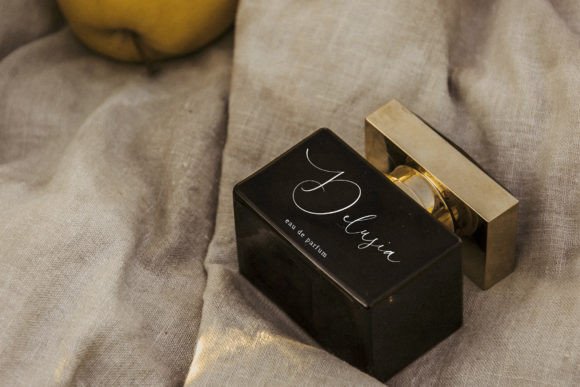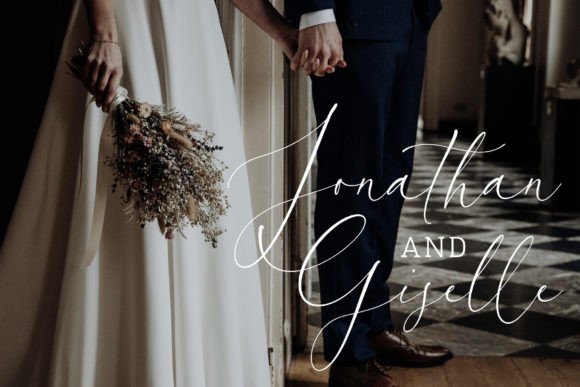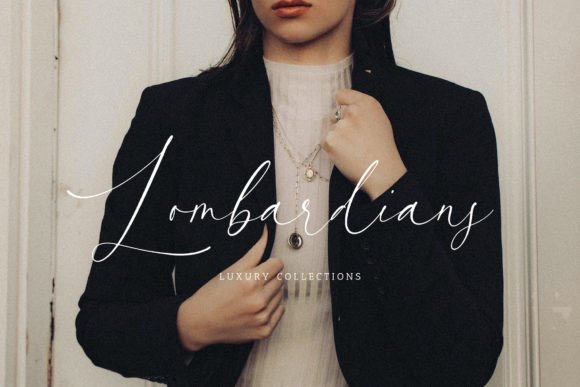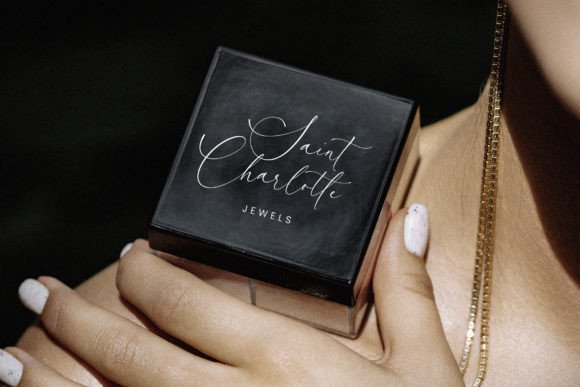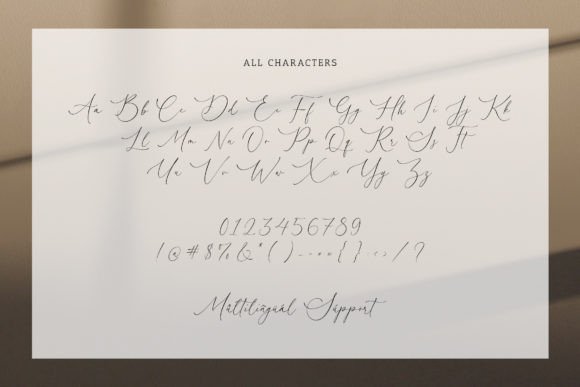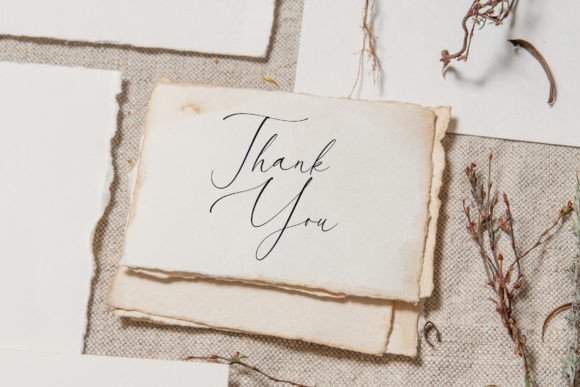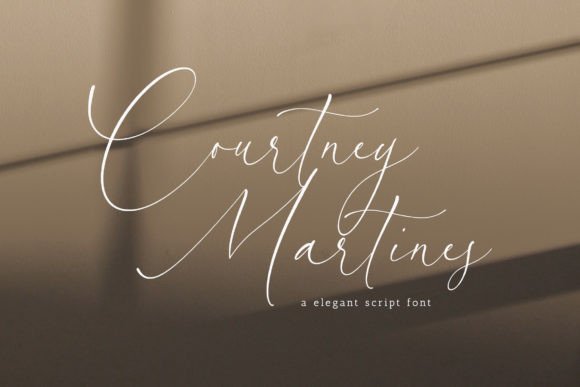
Courtney Martines Font: Elevate Your Designs with Elegant Script
Courtney Martines is an elegant script font, perfect for product packaging, branding, magazines, social media, weddings or any other project that requires a luxurious, handwritten touch. This beautiful font is designed to add a touch of sophistication and glamour to your designs, making it a must-have for designers and crafters looking to elevate their work.
The Characteristics of Courtney Martines Font
Courtney Martines Font is a script font that boasts a range of characteristics that make it perfect for a variety of design applications. Some of its key features include:
- Elegant and Luxurious: Courtney Martines Font has a sophisticated and luxurious feel, making it perfect for high-end branding, packaging, and designs.
- Handwritten Touch: The font has a handwritten touch, which gives it a personal and unique feel.
- Versatile: Courtney Martines Font is versatile and can be used for a range of design applications, from product packaging to social media graphics.
- Easy to Read: Despite its elegant and cursive nature, Courtney Martines Font is easy to read, making it perfect for body text and headlines.
Uses of Courtney Martines Font
Courtney Martines Font is a versatile font that can be used for a range of design applications. Some of the most popular uses of this font include:
- Product Packaging: Courtney Martines Font is perfect for product packaging, adding a touch of luxury and sophistication to your brand.
- Branding: The font is ideal for branding, allowing you to create a unique and memorable identity for your business.
- Magazines and Editorial Design: Courtney Martines Font is perfect for magazines and editorial design, adding a touch of elegance and sophistication to your layouts.
- Social Media Graphics: The font can be used to create stunning social media graphics, from Instagram posts to Facebook headers.
- Weddings and Invitations: Courtney Martines Font is perfect for weddings and invitations, adding a touch of luxury and romance to your designs.
Tips for Using Courtney Martines Font
To get the most out of Courtney Martines Font, here are a few tips to keep in mind:
- Use it as a Headline Font: Courtney Martines Font is perfect for headlines, adding a touch of elegance and sophistication to your designs.
- Pair it with a Sans-Serif Font: Pair Courtney Martines Font with a sans-serif font, such as Arial or Helvetica, to create a stunning contrast.
- Experiment with Colors: The font looks stunning in a range of colors, from metallic gold to rich berry tones.
- Use it for Quotes and Pull-Outs: Courtney Martines Font is perfect for quotes and pull-outs, adding a touch of luxury and sophistication to your designs.
Why Choose Courtney Martines Font?
There are many reasons why you should choose Courtney Martines Font for your next design project. Some of the benefits of this font include:
- Unique and Elegant: Courtney Martines Font is a unique and elegant font that will set your designs apart from the crowd.
- High-Quality: The font is high-quality, with clean lines and a smooth finish.
- Versatile: Courtney Martines Font is versatile and can be used for a range of design applications.
- Easy to Read: The font is easy to read, making it perfect for body text and headlines.
Courtney Martines Font is a beautiful and elegant script font that is perfect for designers and crafters looking to add a touch of luxury and sophistication to their designs. With its versatile nature, easy readability, and stunning appearance, this font is a must-have for any design project. Whether you’re working on product packaging, branding, magazines, social media graphics, or weddings, Courtney Martines Font is the perfect choice.